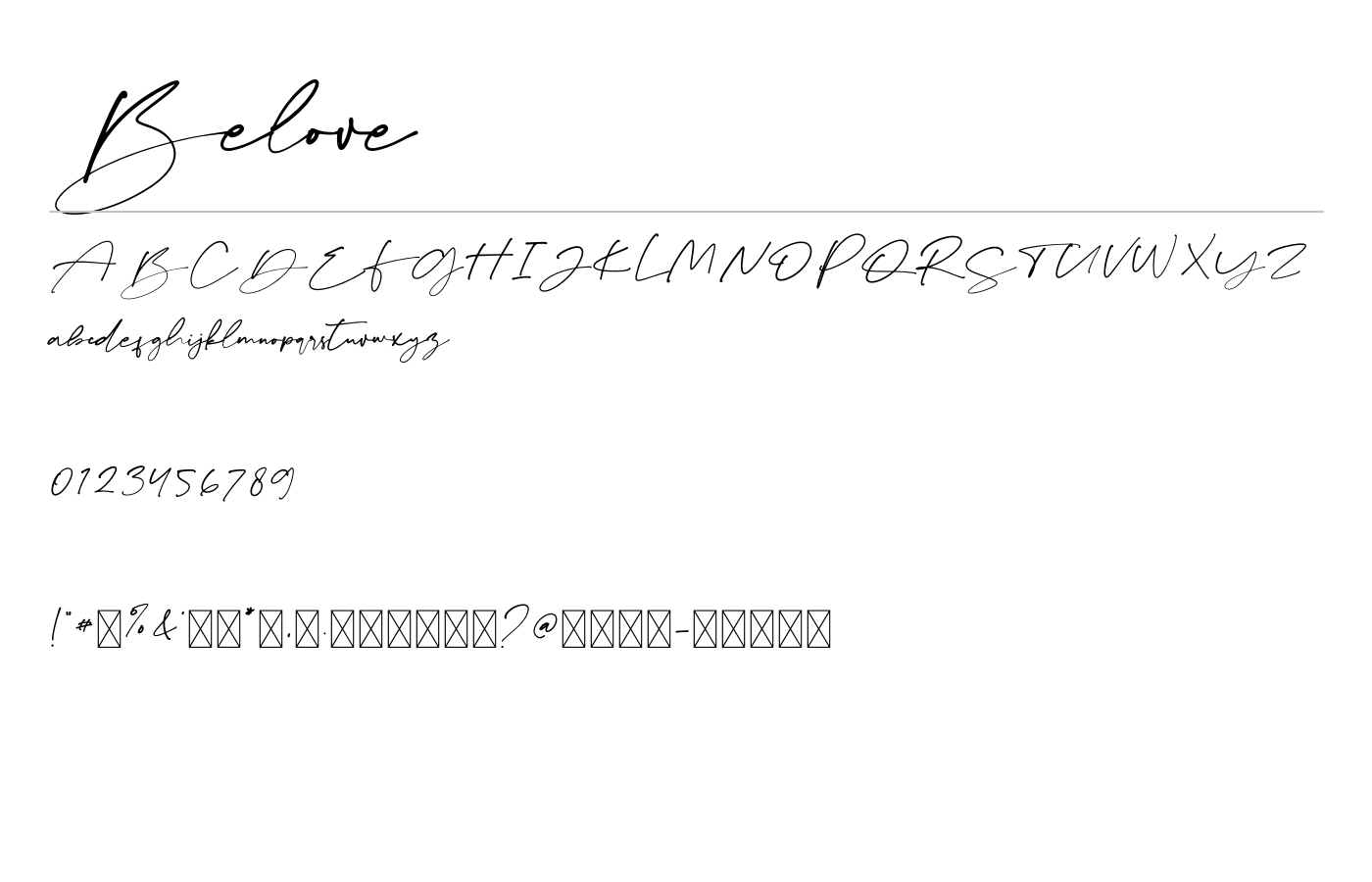
Belove is a delicate, handwritten script font featuring thin, flowing strokes that mimic elegant penmanship. Its airy, slightly irregular letterforms create a charming and personal feel, perfect for invitations, branding, and projects that require a touch of warmth and sophistication. This font works best in large sizes for headlines or logos where its graceful style can truly shine.
Belove Font
About Belove Font